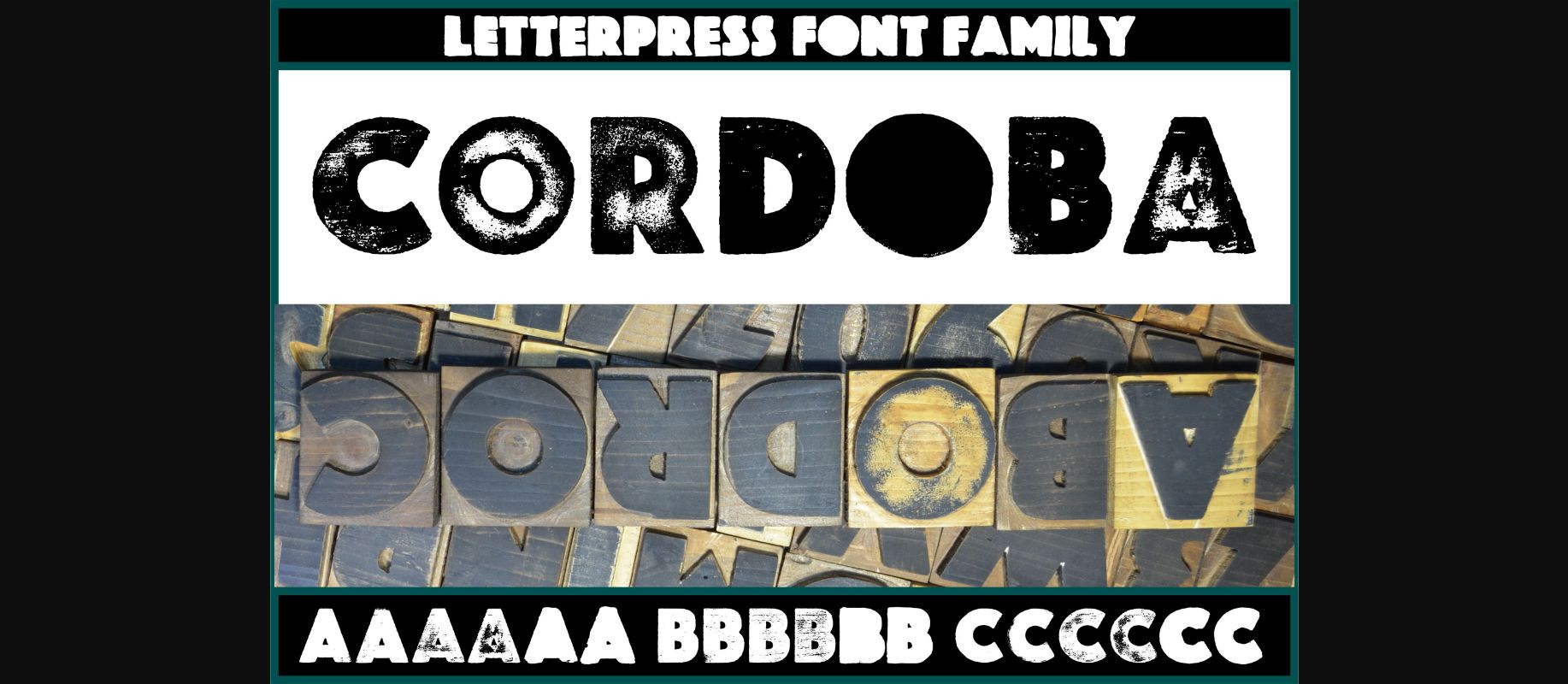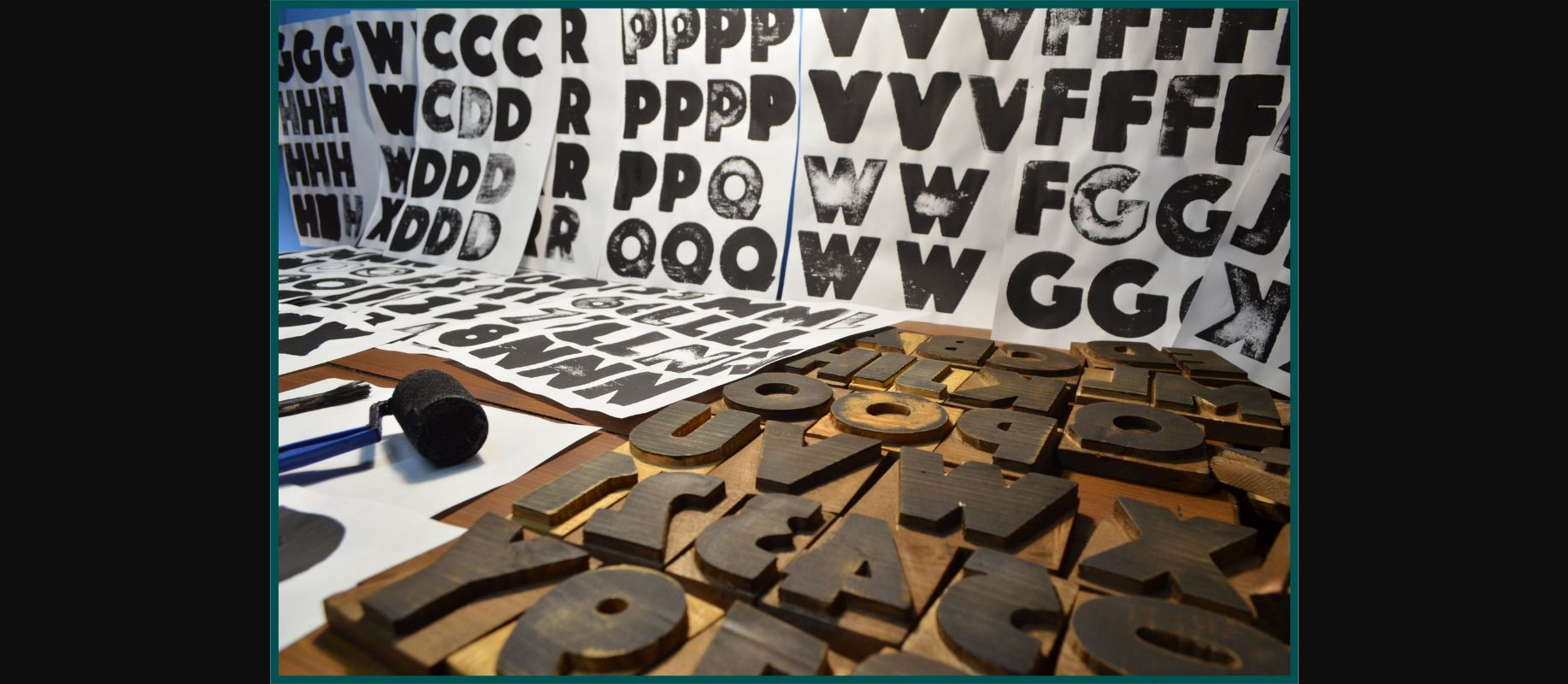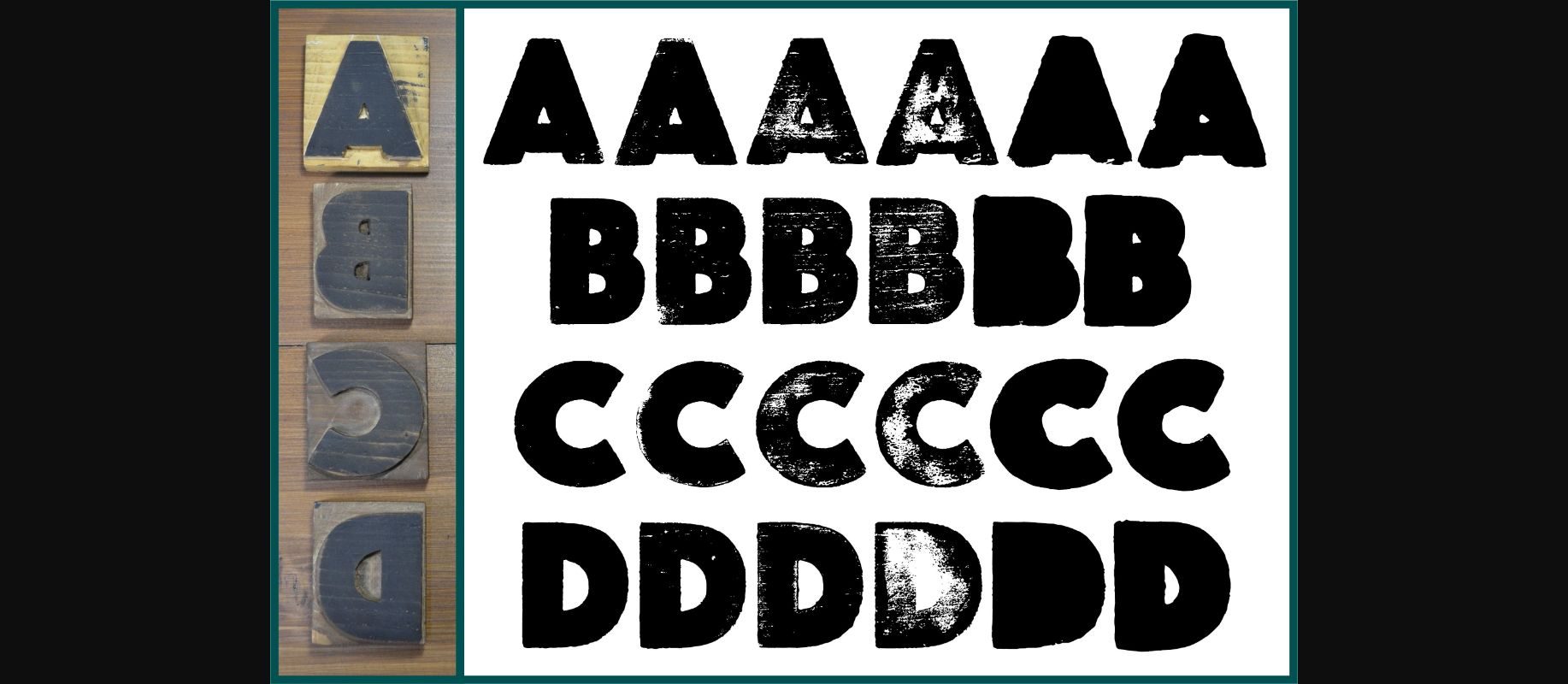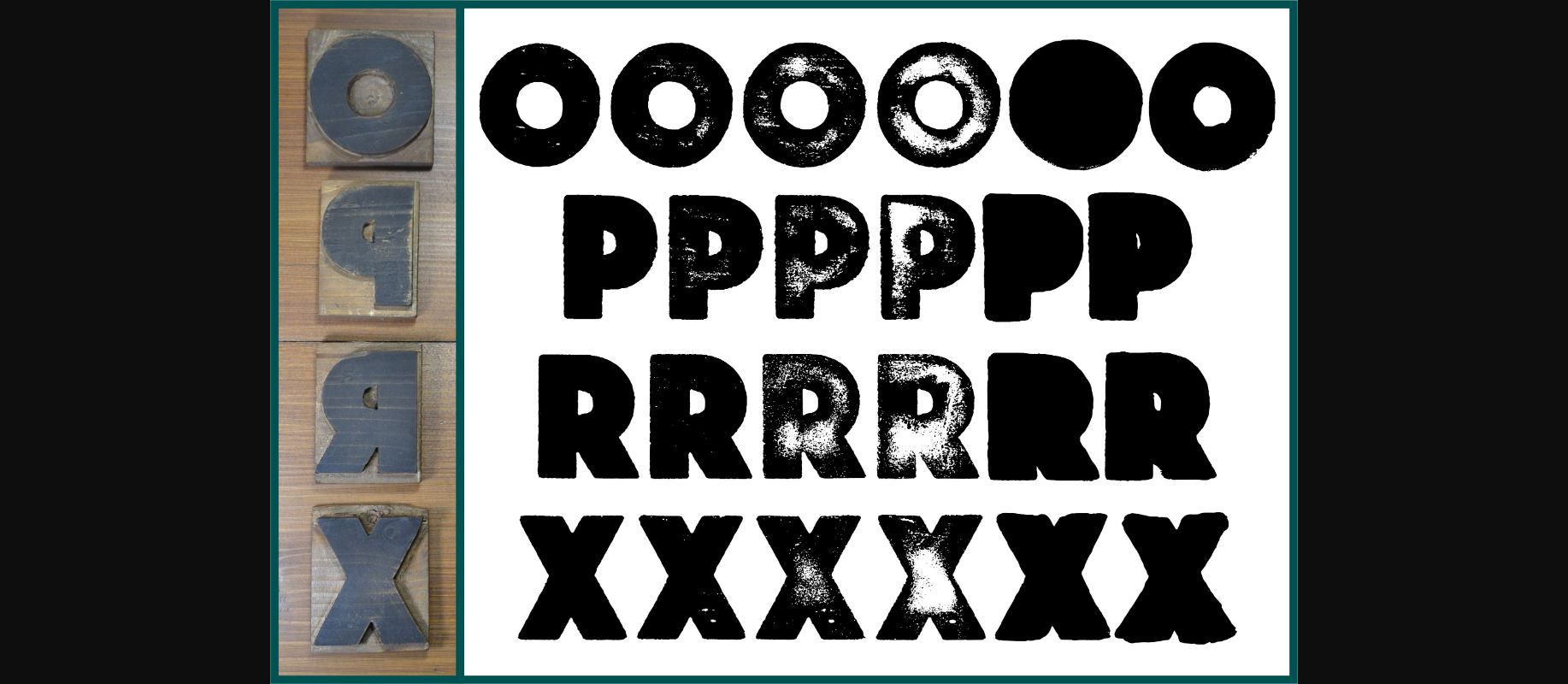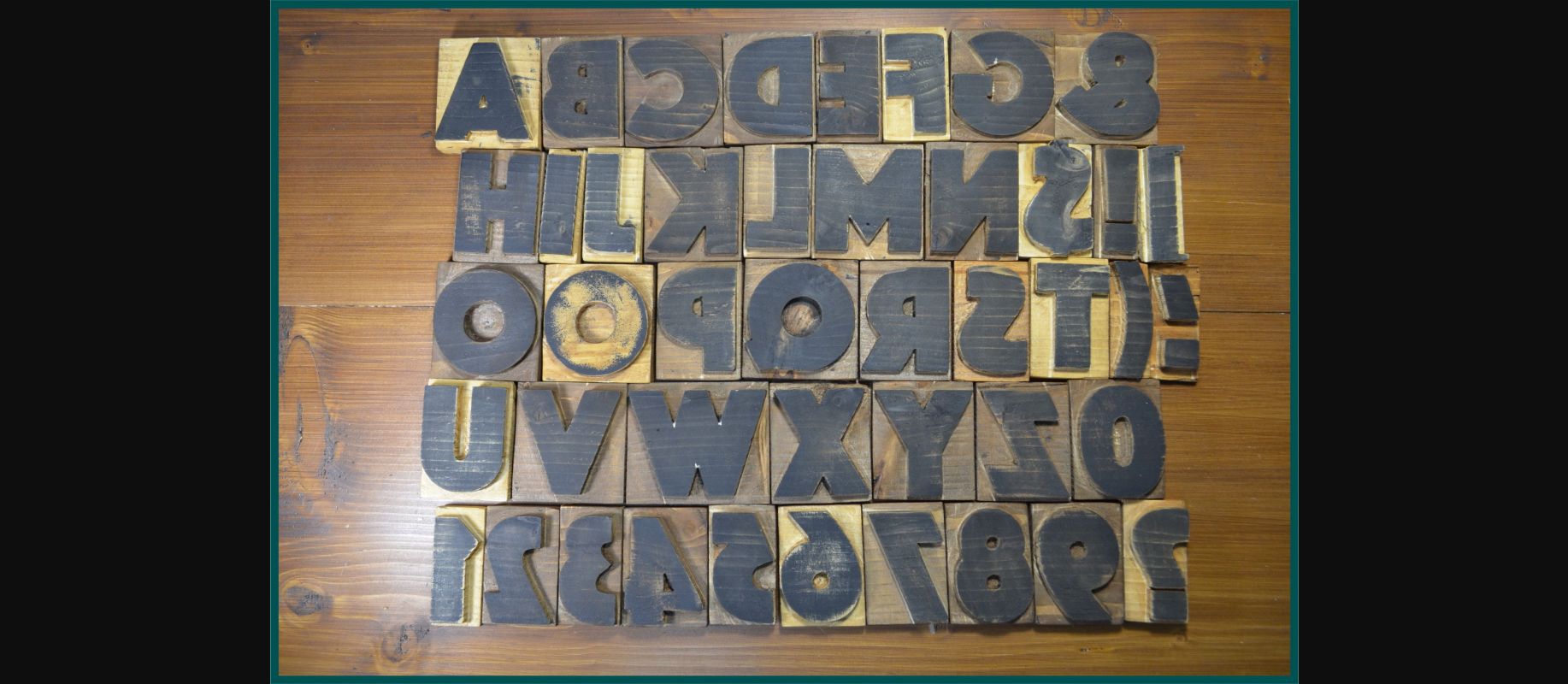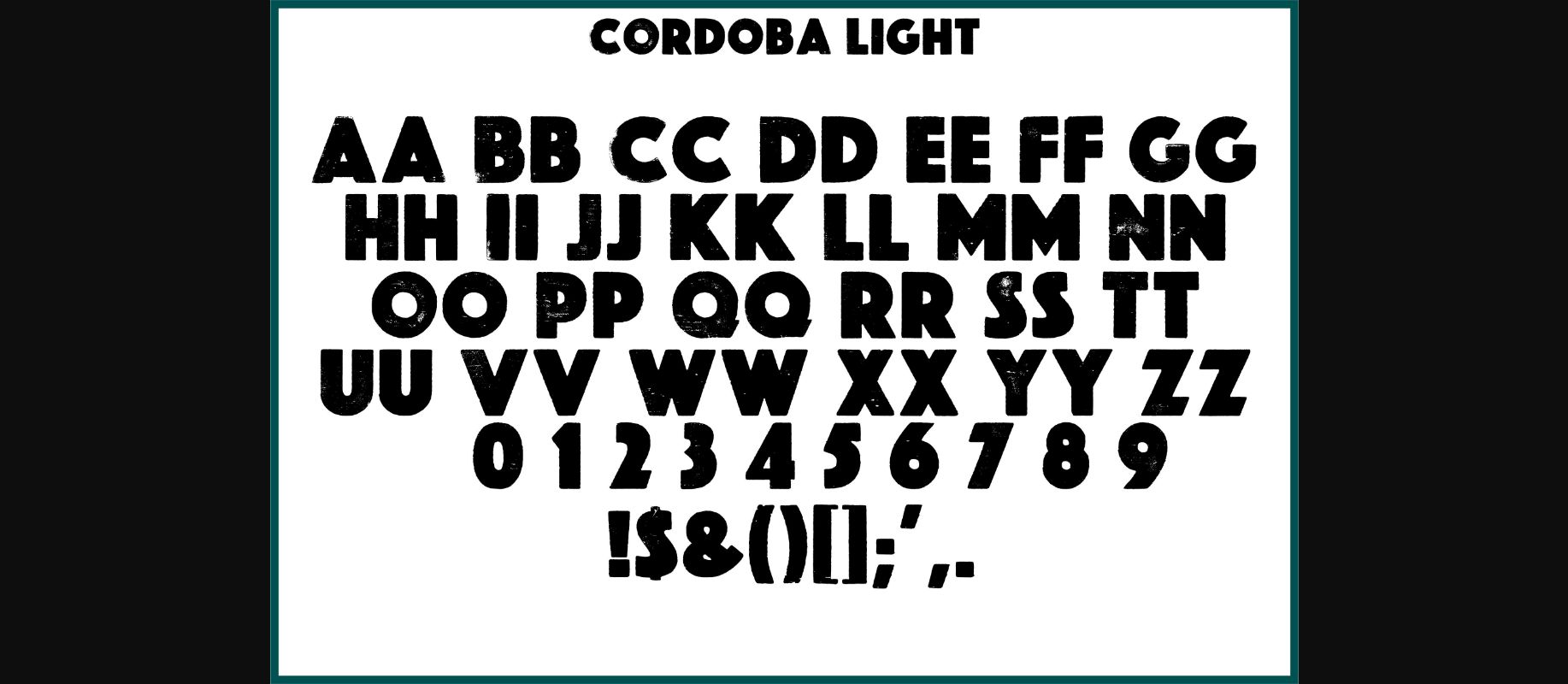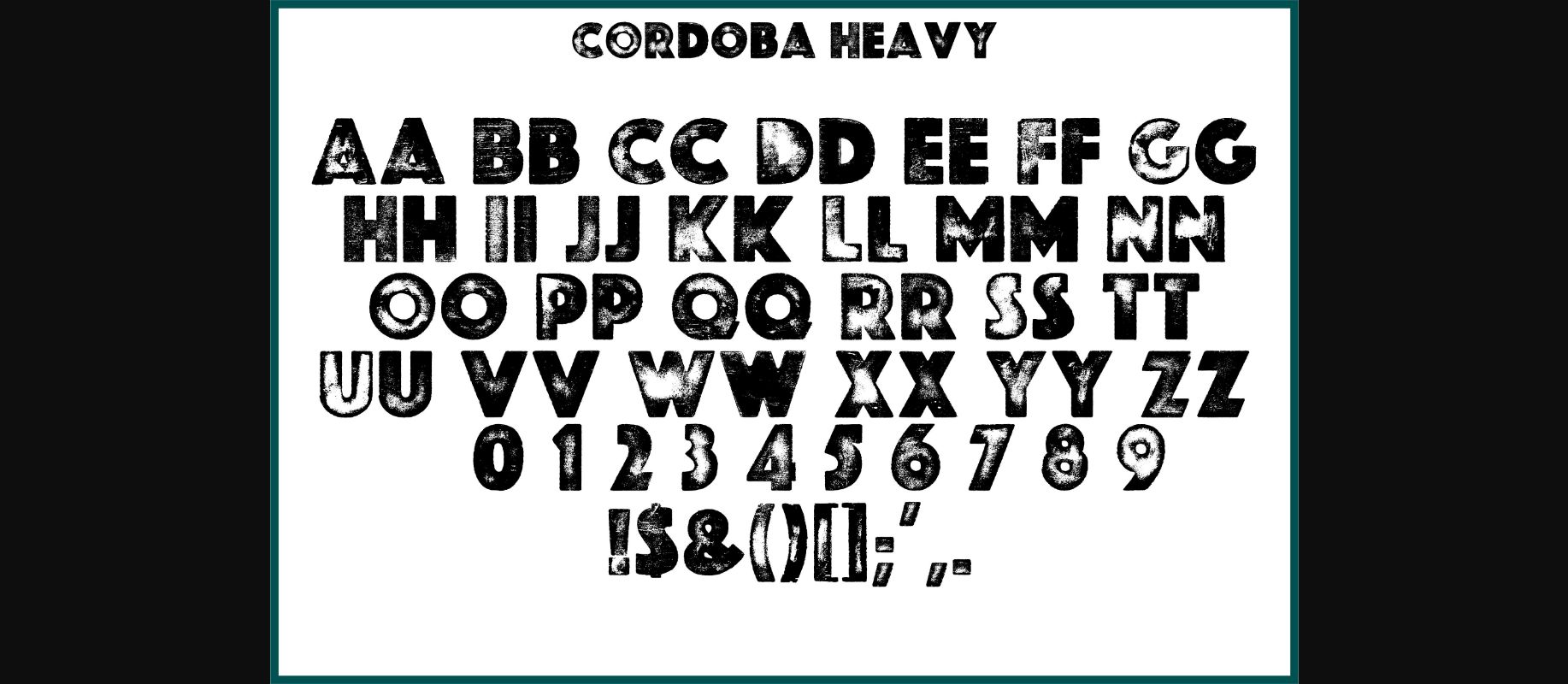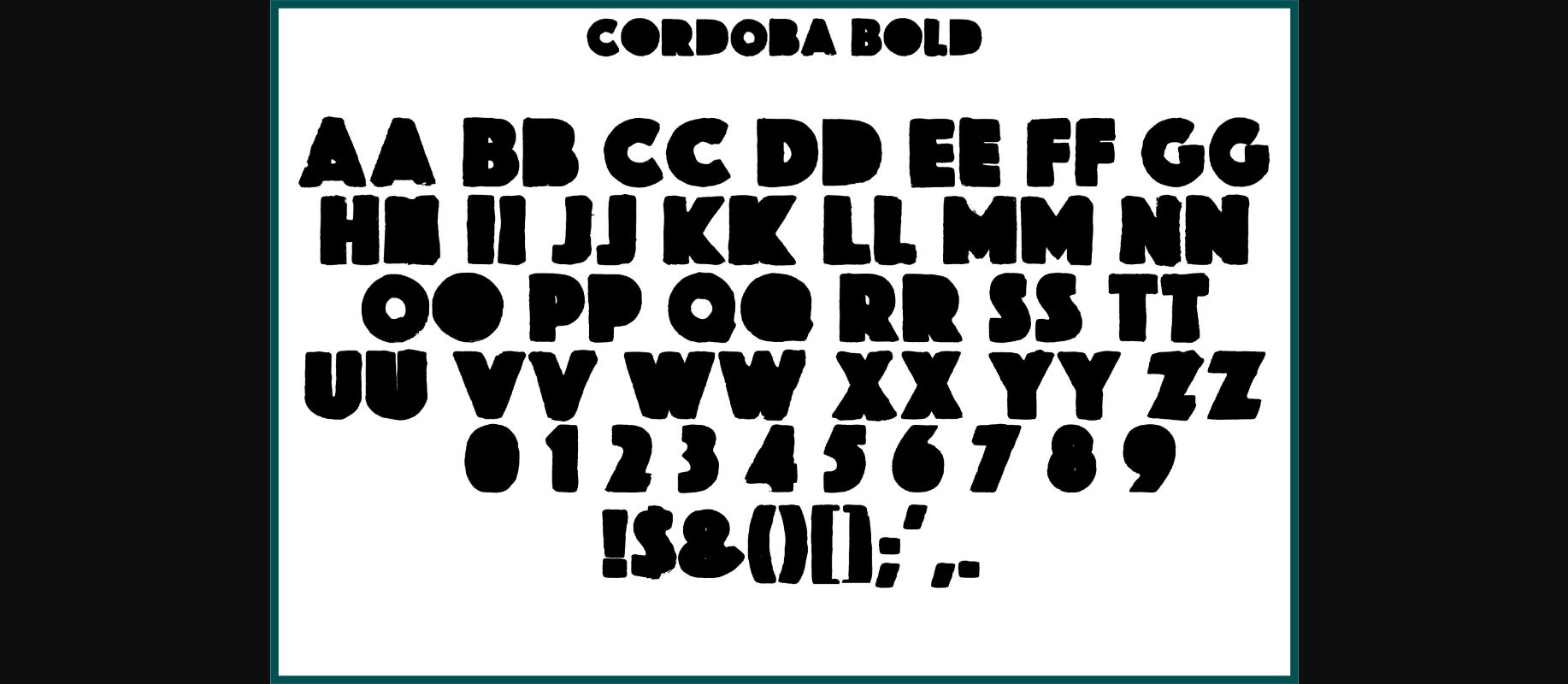
Cordoba Font
About Cordoba Font
How it’s made: Each glyph was carved from wood, pressed, scanned, and digitized.
Typeface made using a letterpress appears tactile and real, as opposed to a digitally created design.
Cordoba is a full cap typeface, that consists of 3 styles – light, medium, and heavy.
Uppercase and lowercase were printed differently. In total, each English alphabet has 6 textured options.
You will not find the same texture pattern reoccurring in the font. All textures were made freshly.